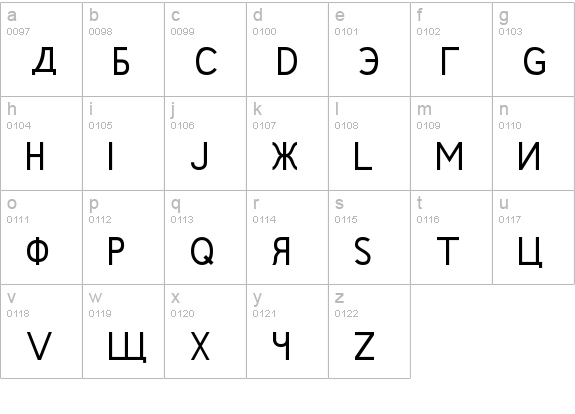
Rushin Regular Font Details
Rushin Regular is the standard, neutral variant in the Rushin typeface family \xE2\x80\x94 well suited to general body text, paragraphs, and standard typographic work.
Rushin Regular font is a versatile and modern typeface that exudes elegance and sophistication. With its clean lines and balanced proportions, Rushin Regular is perfect for a wide range of design projects, from branding to editorial design. This font is ideal for both headings and body text, making it a versatile choice for any designer. What's even better is that Rushin Regular is available for free download at FontsMarket.com. This means you can easily access this high-quality font without any cost, making it a valuable addition to your font collection. Don't miss out on the opportunity to enhance your designs with Rushin Regular - download it now and elevate your creative projects to the next level.